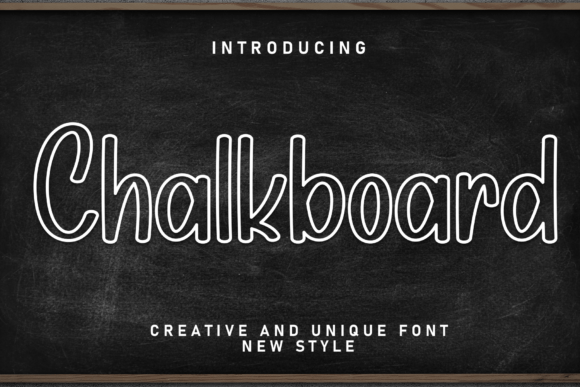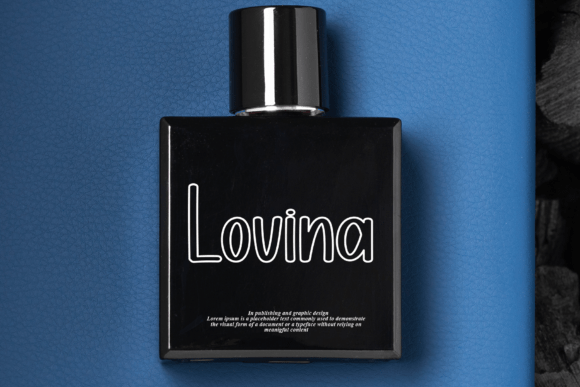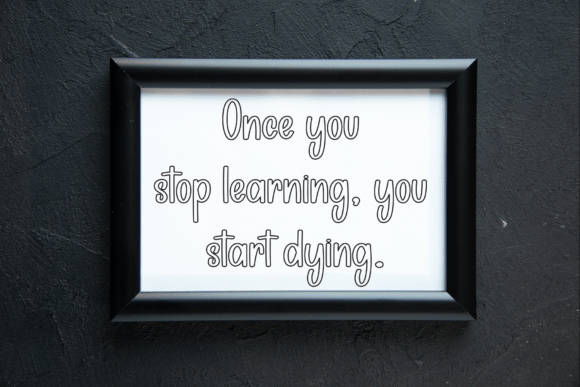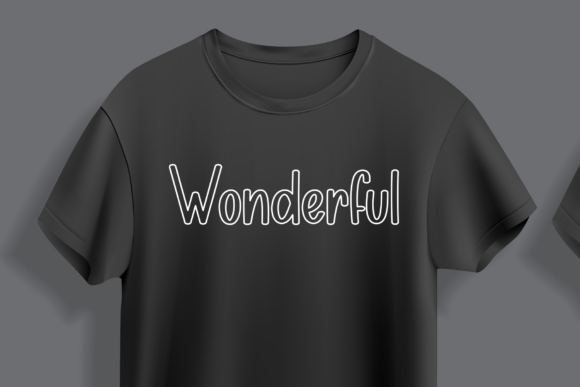
About the Chalkboard Font
Experience the unique personality of Chalkboard Font, a font designed for impact. Bring classroom charm to your designs with Chalkboard — a fun and friendly display font that captures the nostalgic look of hand-drawn school lettering. Its outlined, bubbly style is easy to read and perfect for adding a playful twist to your creative projects.
Whether you’re designing educational materials, posters, kid-friendly branding, or school-themed printables, Chalkboard adds that cheerful and approachable touch every time.
Chalkboard Font Usage Examples
Chalkboard Font Example